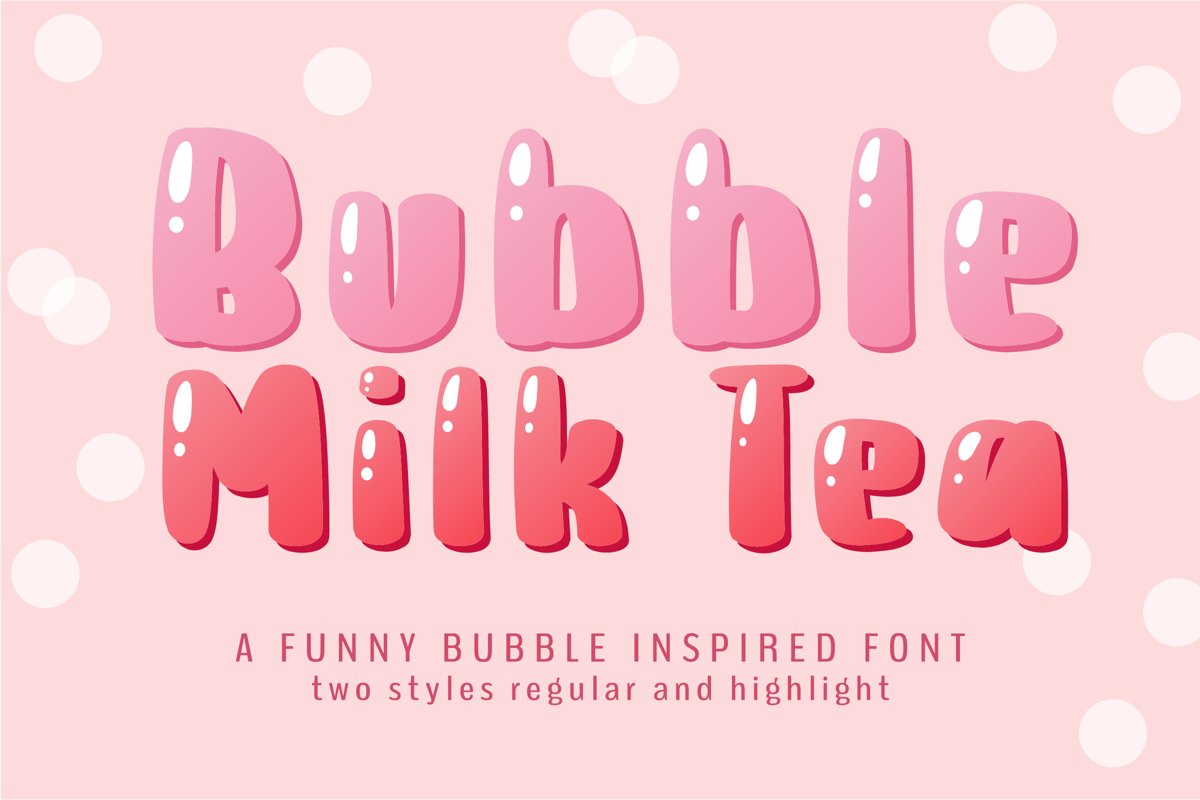
Bubble Milk Tea is a cheerful and friendly display font. It will elevate a wide range of design projects to the highest level, be it branding, headings, invitations, logos, labels, and much more!